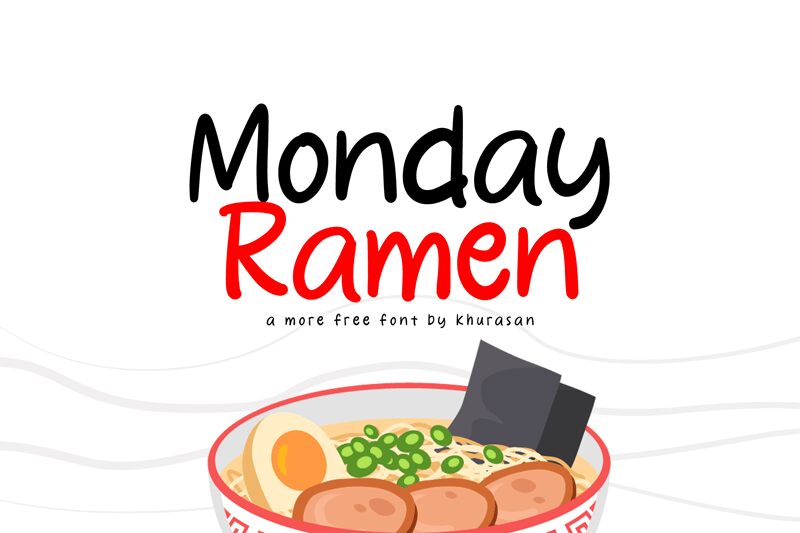
Monday Ramen, a delightful creation by Khurasan, is a semi-light handwritten font that injects warmth and personality into any project.
With its playful curves and natural flow, this font adds a touch of casual elegance to invitations, greeting cards, and social media graphics. Its semi-light weight exudes a gentle charm that is perfect for menu designs, food blogs, and recipe books. Monday Ramen brings an air of authenticity to branding materials for cafes or artisanal products.
Embrace the effortless grace of this font and let it elevate your creative endeavors.